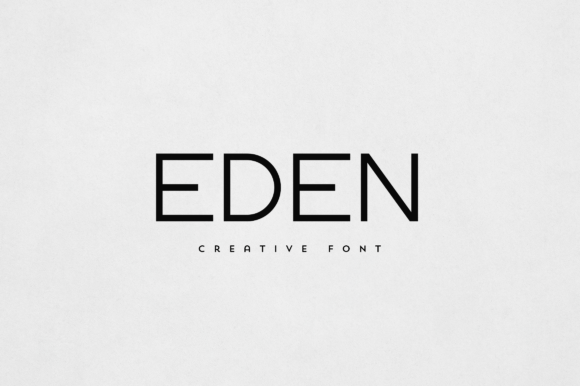
Introducing Eden Font, the ultimate choice for transforming your typography into something truly extraordinary! Created by the talented vladfedotovv, this elegant sans serif font is a must-have for anyone looking to elevate their designs to new heights.
Eden Font is more than just a font – it's a powerful tool that will captivate your audience and leave a lasting impression. With its sleek and modern design, this font is perfect for any creative project, whether it's a logo, branding, headline, or even plain text. The possibilities are endless!
One of the standout features of Eden Font is its versatility. It seamlessly blends into any design, effortlessly enhancing the overall aesthetic. Whether you're working on a branding project, home-ware designs, product packaging, or magazine headers, this font will add a touch of sophistication and elegance.
But what truly sets Eden Font apart is its ability to create a harmonious balance between style and substance. It not only looks visually stunning but also delivers a clear and concise message, making it highly effective in conveying your brand's identity and values.
Imagine your logo adorned with Eden Font – it instantly becomes a symbol of elegance, sophistication, and professionalism. Your audience won't be able to take their eyes off it! And when it comes to branding, Eden Font effortlessly communicates your unique style, setting you apart from the competition.
Furthermore, this font serves as the perfect text overlay to any background image. It effortlessly blends in, enhancing the visuals and creating a seamless integration between the text and the image. Your designs will come to life, capturing attention and evoking emotions in your audience.
Embrace the power of Eden Font and unlock a world of creative possibilities. Its captivating charm and versatility make it a must-have for any designer or entrepreneur looking to make a statement. With Eden Font, your typography will transcend the ordinary and leave a memorable impression.